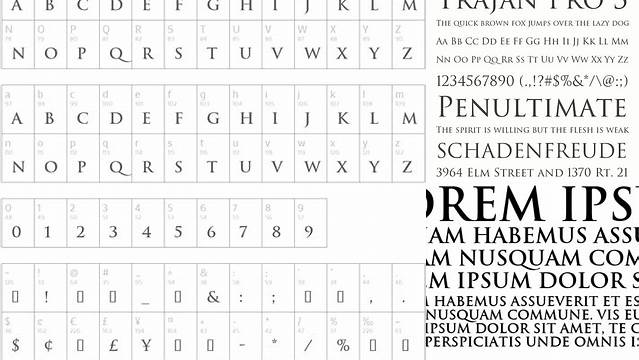
Trajan 3 Bold Font: Free Download & Usage Guide
Introduction to Trajan 3 Bold Font
Trajan 3 Bold font is a distinguished and elegant typeface that has become a staple in the world of design. Guys, if you're looking for a font that exudes sophistication and commands attention, Trajan 3 Bold is definitely worth considering. This font is a modern take on the classic Trajan typeface, which was inspired by the lettering on the Trajan's Column in Rome. The bold weight adds a sense of strength and authority, making it perfect for headlines, logos, and other prominent design elements. In this comprehensive guide, we'll delve into the history, characteristics, and applications of Trajan 3 Bold, and most importantly, how you can get your hands on it for free. We'll explore various online resources and methods to download this font without spending a dime, ensuring you can incorporate this timeless typeface into your projects seamlessly. Whether you're a seasoned designer or just starting out, understanding how to access and utilize fonts like Trajan 3 Bold is crucial for creating visually stunning and impactful designs. Let's dive in and explore the world of Trajan 3 Bold, uncovering its nuances and demonstrating how you can leverage its power in your creative endeavors. We will also discuss the licensing aspects, ensuring you use the font legally and ethically in your projects. So, buckle up and get ready to discover everything you need to know about Trajan 3 Bold font – your journey to mastering this elegant typeface starts now!
The History and Evolution of Trajan Font
The history of Trajan font is deeply rooted in classical Roman typography, dating back to the early 2nd century AD. The original inspiration for this typeface comes from the inscriptions carved on Trajan's Column in Rome, a monument erected to commemorate Emperor Trajan's victory in the Dacian Wars. These inscriptions are widely regarded as some of the finest examples of Roman square capitals, characterized by their clean lines, balanced proportions, and timeless elegance. The letterforms were meticulously crafted, reflecting the Roman emphasis on order and precision. Over the centuries, these classical letterforms have been studied and reinterpreted by numerous typographers, each bringing their own unique perspective and style. The modern Trajan font, as we know it today, is a result of this long and rich history of adaptation and refinement. It's not just a font; it's a piece of history, a testament to the enduring appeal of Roman aesthetics. The evolution of Trajan from its ancient origins to its contemporary forms illustrates the dynamic nature of typography, where classic designs are constantly reimagined to suit modern sensibilities. This evolution ensures that Trajan remains relevant and continues to be used in a wide range of design applications. The Trajan 3 Bold variant is one such evolution, adding a bold weight to the classic design, making it even more impactful and suitable for headlines and display purposes. Understanding this historical context provides a deeper appreciation for the font's significance and its enduring legacy in the world of typography. Guys, using Trajan is not just selecting a font; it's connecting with a historical legacy.
Key Characteristics of Trajan 3 Bold
Trajan 3 Bold font possesses several distinctive characteristics that make it a favorite among designers. Its most notable feature is its all-caps design, meaning it only includes uppercase letters. This characteristic lends itself well to formal and authoritative applications, such as titles, headings, and logos. The letterforms are characterized by their strong vertical strokes, elegant serifs, and balanced proportions, which together create a sense of timelessness and sophistication. The bold weight further enhances its impact, making it stand out and command attention. Each letter is meticulously crafted, reflecting the attention to detail that defines classical Roman typography. The serifs are particularly noteworthy, adding a touch of refinement and elegance to the overall design. These small details contribute to the font's legibility and readability, even at larger sizes. Trajan 3 Bold also exhibits excellent kerning, the spacing between individual letters, which ensures that the text flows smoothly and harmoniously. This attention to spacing is crucial for maintaining the font's visual appeal and ensuring a professional look. The font's strong presence and classic aesthetic make it suitable for a wide range of design projects, from print materials to digital media. Whether you're designing a book cover, a movie poster, or a website header, Trajan 3 Bold can help you create a lasting impression. Its versatility and timeless appeal make it a valuable asset in any designer's toolkit. So, guys, if you're looking for a font that combines strength, elegance, and historical significance, Trajan 3 Bold is an excellent choice. Its unique characteristics set it apart and make it a true classic in the world of typography.
How to Use Trajan 3 Bold Effectively
Trajan 3 Bold font, with its commanding presence and elegant design, is a powerful tool in any designer's arsenal. However, like any tool, it's essential to know how to use it effectively to achieve the desired results. Using Trajan 3 Bold judiciously can elevate your designs, while overusing it can diminish its impact. Let's explore some best practices for incorporating this typeface into your projects. Guys, the key is to understand its strengths and limitations and to use it in a way that complements your overall design aesthetic.
Best Practices for Incorporating Trajan 3 Bold in Designs
When incorporating Trajan 3 Bold into your designs, consider its strengths and use it strategically. This font is particularly effective for headlines, titles, and logos where you want to convey a sense of authority, elegance, and timelessness. Its all-caps design makes it ideal for short, impactful text. Avoid using Trajan 3 Bold for body text or lengthy paragraphs, as its uppercase nature can make it difficult to read in large blocks. Instead, pair it with a more legible serif or sans-serif font for the body text. When choosing a complementary font, look for one that has a similar tone and style but offers better readability for longer passages. Think about fonts like Garamond, Times New Roman, or even a clean sans-serif like Helvetica or Arial. The contrast between Trajan 3 Bold and a more understated body text font can create a visually appealing hierarchy. In terms of color, Trajan 3 Bold works well in both light and dark settings. However, its bold weight means it can be quite dominant, so be mindful of the overall color palette and ensure it doesn't clash with other elements in your design. Experiment with different font sizes and weights to see what works best for your specific project. Sometimes, a slightly smaller size can be more effective than an overly large one. Remember, guys, the goal is to enhance your design, not overwhelm it. When using Trajan 3 Bold in logos, consider the overall brand identity and message. This font is well-suited for brands that want to project a sense of history, tradition, and sophistication. However, it may not be the best choice for brands that want to appear modern and playful. Ultimately, the key to using Trajan 3 Bold effectively is to be thoughtful and intentional. Consider the context of your design, the message you want to convey, and the overall aesthetic you're aiming for. With a little bit of practice and experimentation, you can master the art of using Trajan 3 Bold to create stunning designs.
Examples of Effective Trajan 3 Bold Usage
To better understand how to use Trajan 3 Bold effectively, let's look at some examples of its successful application in various design projects. One of the most common uses of Trajan 3 Bold is in movie posters, particularly for historical dramas and epic films. Its classic and authoritative appearance lends itself well to these genres, conveying a sense of grandeur and importance. Think of posters for movies like "Gladiator" or "Troy," where Trajan 3 Bold is often used for the title and key credits. Another area where Trajan 3 Bold shines is in branding and logo design. Many high-end brands in industries such as fashion, luxury goods, and hospitality use Trajan 3 Bold in their logos to project an image of sophistication and elegance. The font's timeless appeal makes it a great choice for brands that want to establish a long-lasting identity. In the publishing world, Trajan 3 Bold is often used for book covers, especially for historical fiction, biographies, and non-fiction works on classical subjects. The font's readability and classic style make it a good fit for these genres. Additionally, Trajan 3 Bold can be used effectively in event invitations and announcements, particularly for formal occasions such as weddings, galas, and corporate events. Its elegant appearance adds a touch of class and sophistication to these materials. Guys, it's important to note that the examples above are just a starting point. The versatility of Trajan 3 Bold means it can be used in a wide range of design projects, as long as it's used thoughtfully and strategically. The key is to consider the overall message you want to convey and the aesthetic you're aiming for. By studying successful examples of Trajan 3 Bold usage, you can gain inspiration and develop your own unique approach to incorporating this font into your designs. Remember, guys, practice makes perfect. The more you experiment with Trajan 3 Bold, the better you'll become at using it effectively. So, go ahead and explore the possibilities – you might just surprise yourself with what you can create!
Conclusion: Mastering Trajan 3 Bold for Timeless Designs
In conclusion, Trajan 3 Bold font is a timeless and elegant typeface that can elevate your designs with its classic appeal and authoritative presence. Throughout this guide, we've explored its history, characteristics, and applications, as well as how to find it for free and use it effectively. Guys, mastering Trajan 3 Bold involves understanding its strengths and limitations and incorporating it strategically into your projects. By avoiding common mistakes and following best practices, you can harness the power of this typeface to create stunning designs that stand the test of time. We've discussed the importance of understanding font licensing to ensure ethical and legal use, and we've explored various resources for finding free alternatives if the exact Trajan 3 Bold isn't available. Remember, typography is a crucial element of design, and choosing the right font can make all the difference. Trajan 3 Bold, with its rich history and distinctive style, is a valuable asset in any designer's toolkit. Whether you're designing a movie poster, a logo, or a book cover, this font can help you convey a sense of sophistication, elegance, and authority. However, it's essential to use it judiciously and pair it with complementary fonts to achieve the desired effect. By studying examples of successful Trajan 3 Bold usage and practicing your own designs, you can develop your skills and create truly memorable work. So, guys, embrace the challenge, experiment with different approaches, and let your creativity shine. Trajan 3 Bold is a powerful tool, but it's your vision and skill that will bring your designs to life. With a little bit of knowledge and a lot of passion, you can master Trajan 3 Bold and create timeless designs that leave a lasting impression.